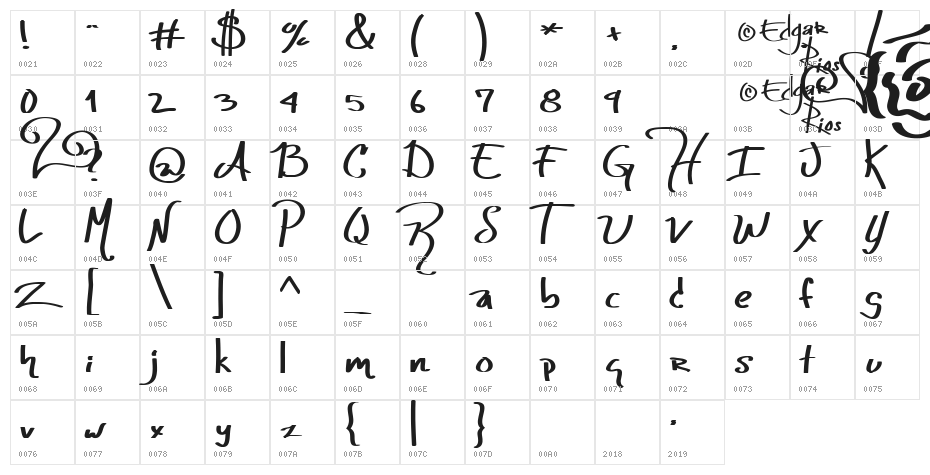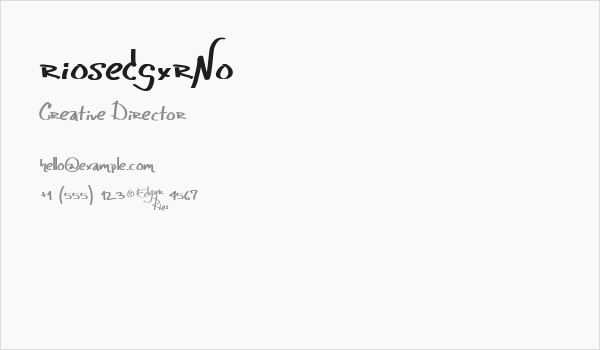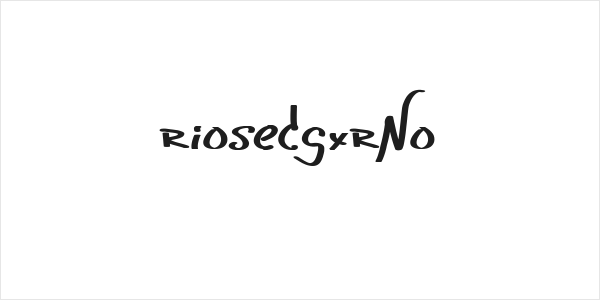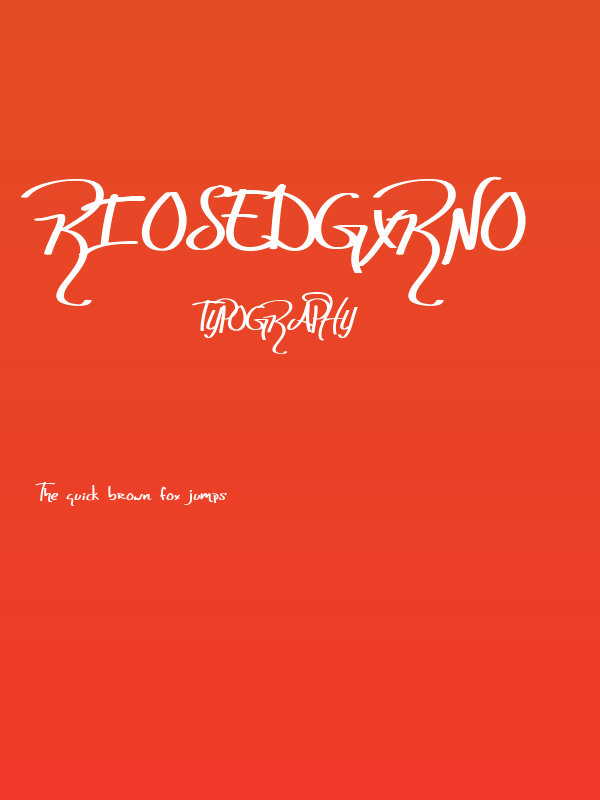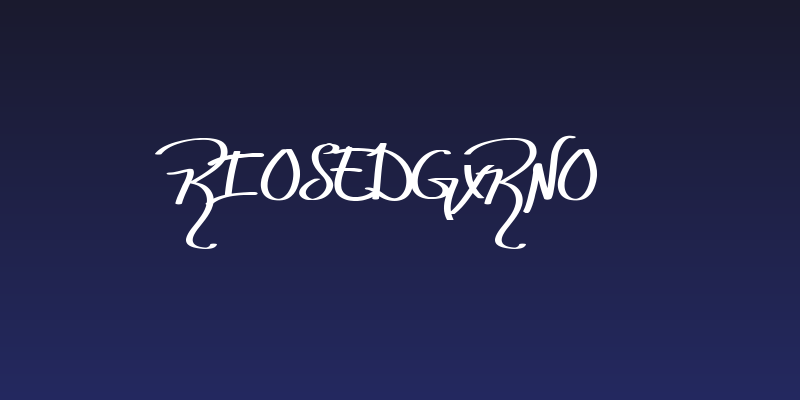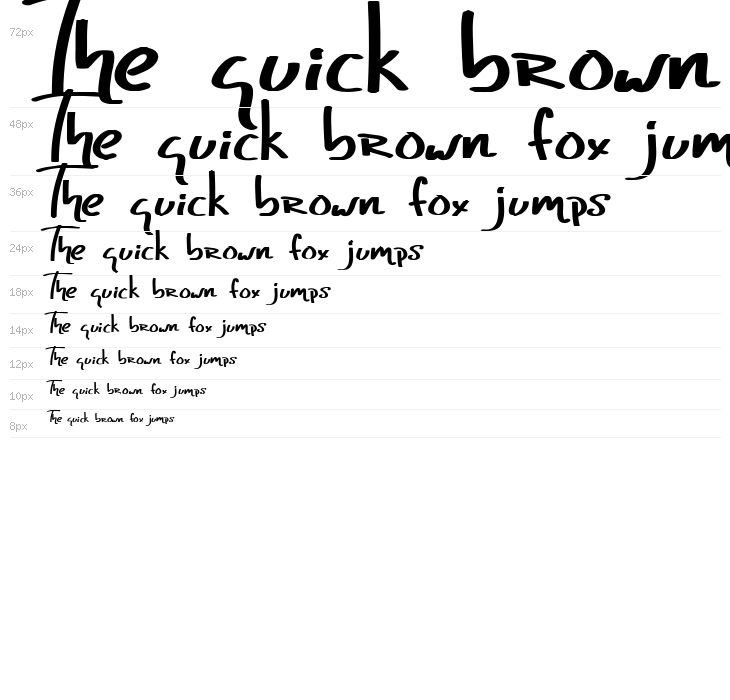
riosedgxrNo Font
riosedgxrNo Description
This font exudes a dynamic and expressive handwritten style, characterized by its fluid and cursive strokes. The uppercase letters are bold and sweeping, with a playful yet elegant flair, while the lowercase letters maintain a consistent flow, enhancing readability. The numerals are distinct and maintain the same lively style, making them easily distinguishable. Special characters are creatively integrated, adding to the font's overall artistic appeal. This font is perfect for projects that require a personal touch, such as invitations, greeting cards, or branding materials that aim to convey creativity and individuality.
Use CaseLogos, Headlines, Creative projects
Proposed ProjectsIdeal for invitations, greeting cards, branding, and creative projects.